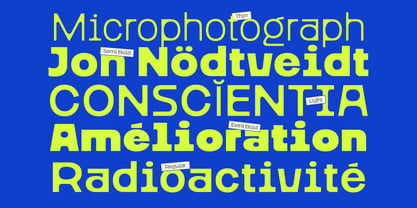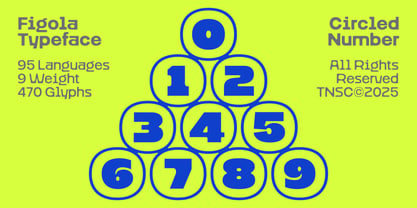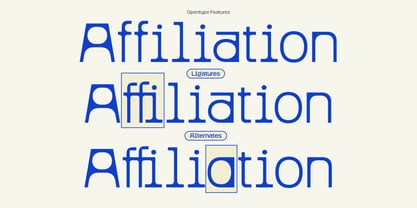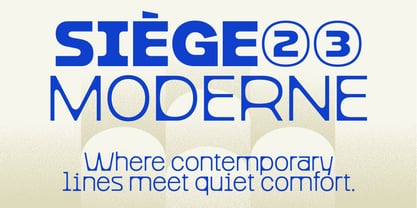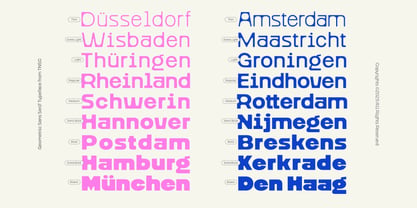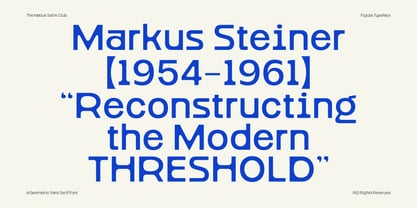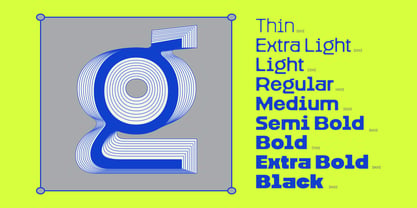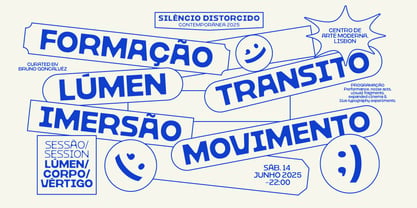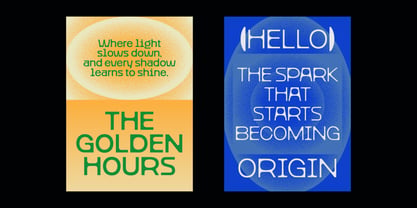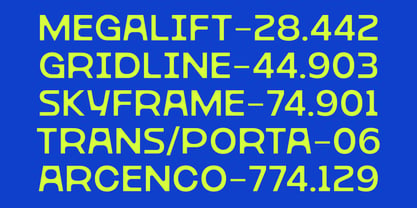
The Figola Font Family was designed by Bagas Ferdiansah, Septianto Nugroho and published by The Native Saint Club. Figola contains 9 styles and family package options. More about this family
Figola designed with strong geometric forms and soft curves, this type family includes 9 weights from Thin to Black, allowing precise control over weight and visual rhythm. With extensive glyph coverage, circled numerals, and multilingual support. Perfect for branding, posters, editorial layouts, wayfinding, packaging, signage, and modern UI. NOTE : Please Check the Help File first and for all the characters are also available, accessible in the Adobe Illustrator Glyphs Panel, or in Adobe Photoshop Character Open Type Panel. For upgrading license please contact me. Upgraded licenses are required for apps, books, television, commercial exhibition, film, gaming, print on demand products, etc. simply email me to : We hope you enjoy the font, please feel free to comment if you have any thoughts or feedback. Thanks for purchasing and have fun! Regards, The Native Saint Club